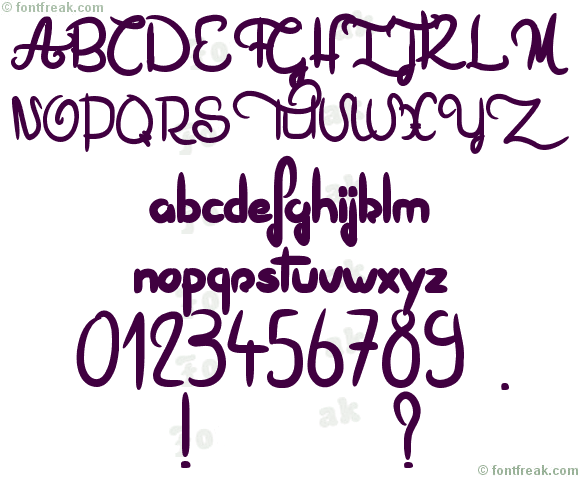
This is not a font
"This is not a font" by Maelle.K is a playful and distinctive script font that captures attention with its whimsical charm. This font falls into the decorative category, making it ideal for creative projects that require a touch of personality. With its varied stroke weight and smooth curves, the font exudes a casual yet refined aesthetic, perfect for adding character to any design. The contrast between the thicker and thinner strokes creates a dynamic visual appeal, while the generous spacing ensures readability.
This font is particularly suited for a variety of use cases. It shines in wedding invitations, where its elegant loops and flourishes can enhance the romantic theme. Additionally, it is a great choice for movie posters, lending a fun and quirky feel that can attract viewers’ attention. Restaurant menus can benefit from its unique style, giving diners a sense of the establishment's character and ambiance. Content creators will find this font perfect for social media graphics, as it helps convey a friendly and approachable vibe. Graphic designers and small business owners will appreciate its versatility in branding materials, ensuring their projects stand out.
The target audience for "This is not a font" includes graphic designers, small business owners, and content creators who are looking for a unique typeface to elevate their designs. Whether you’re designing a logo, crafting a greeting card, or working on digital content, this font brings a distinctive flair to any project.